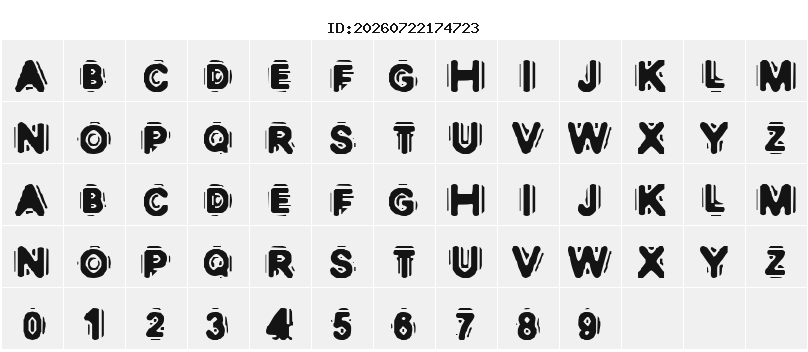
• Font Name: JI-Jester
• Designer: JupiterImages
About JI-Jester.ttf
JI-Jester.ttf is a modern, elegant sans-serif font designed for ultimate readability and visual harmony. Perfect for branding, headlines, web design, and print materials.